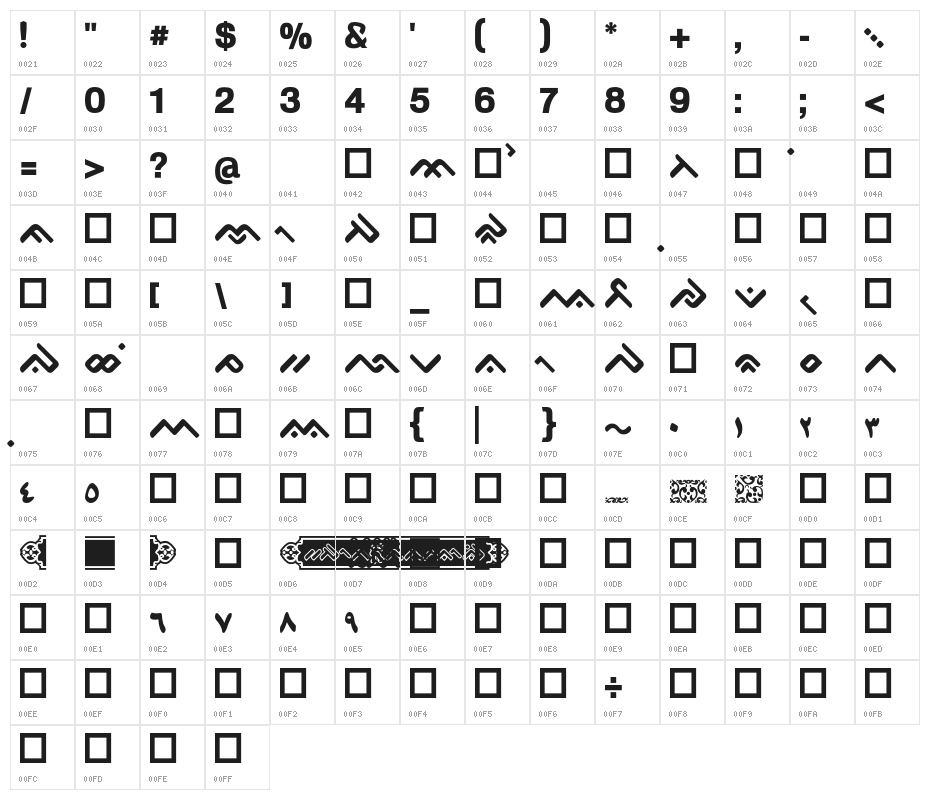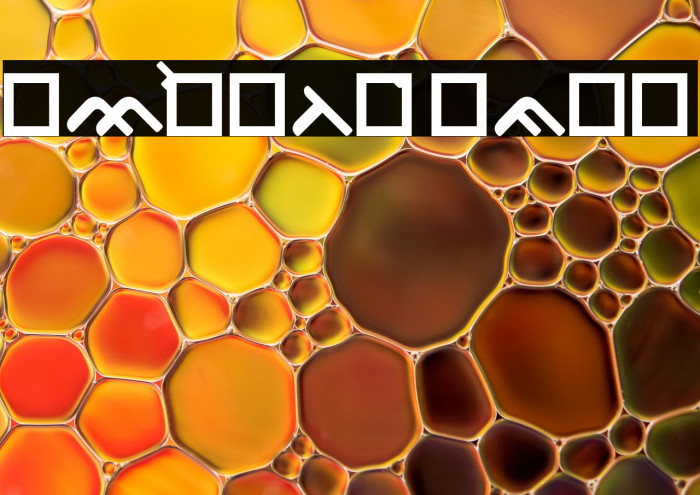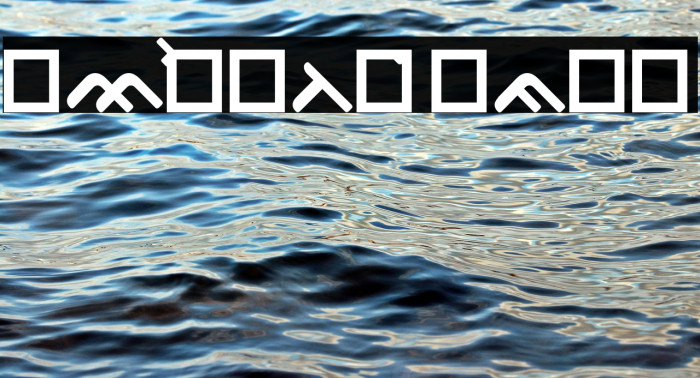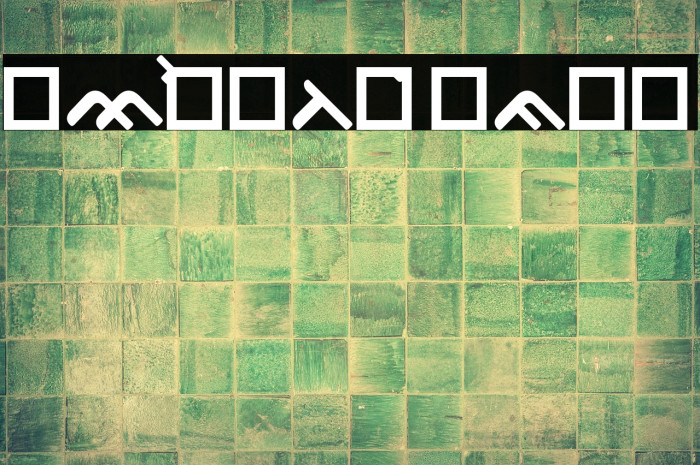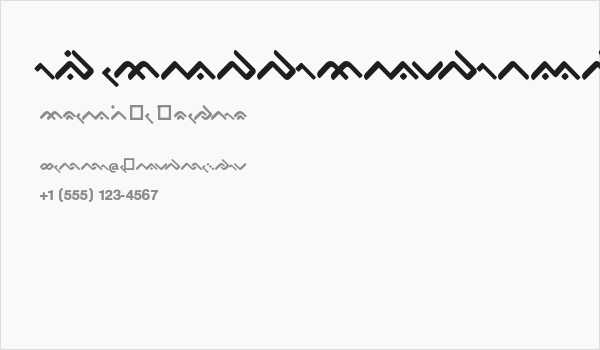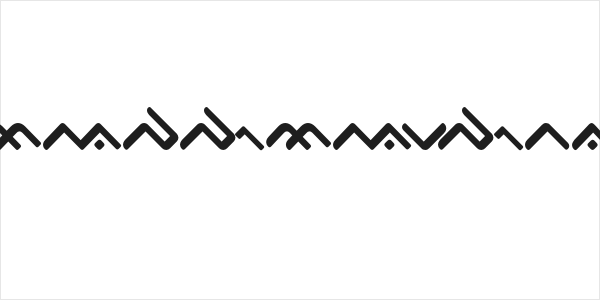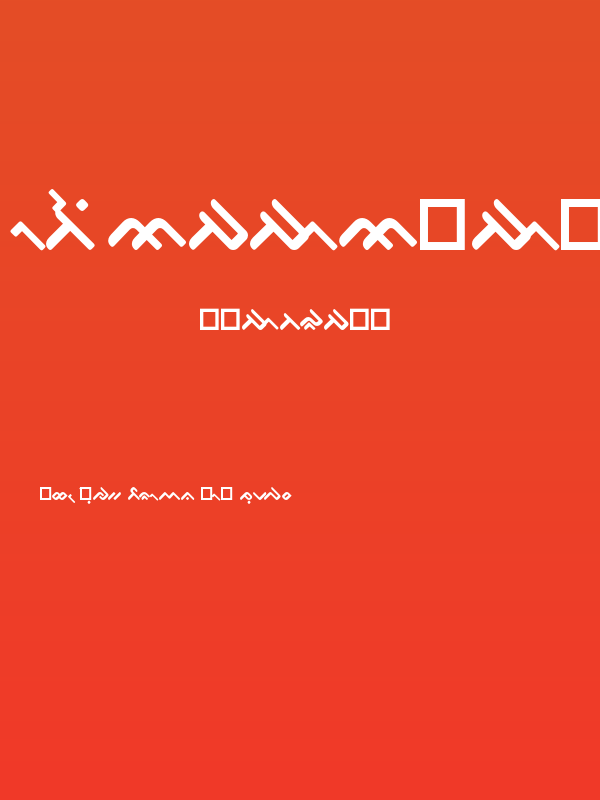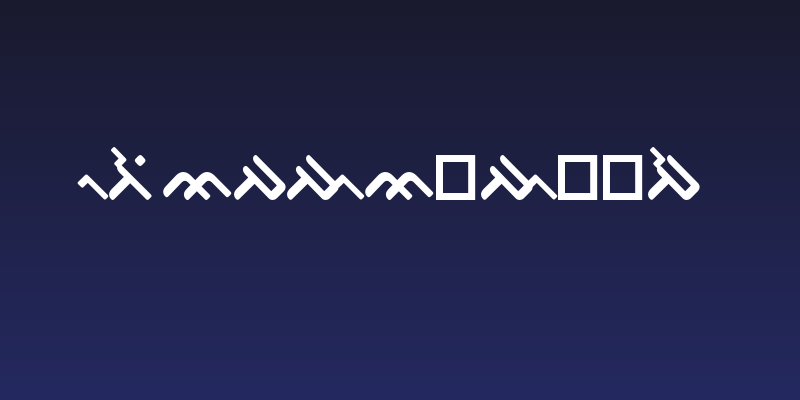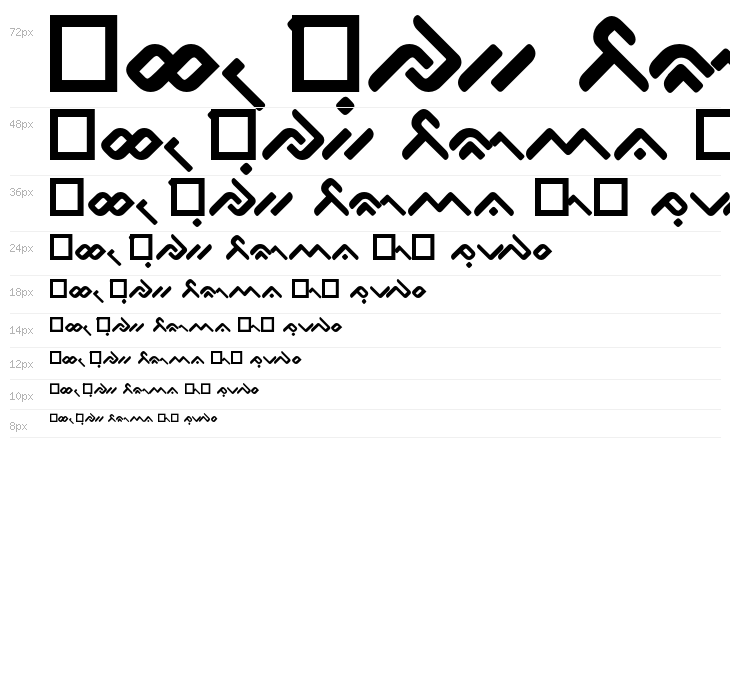
OgieCappoCampotype Font
OgieCappoCampotype Description
This font features a bold and modern design with strong geometric shapes and clean lines. The characters are uniformly thick, providing a consistent and powerful appearance. The numerals and special characters maintain the same boldness, ensuring a cohesive look across all elements. The font's style is assertive and impactful, making it suitable for projects that require a strong visual presence. Its simplicity and clarity make it versatile for various design applications.